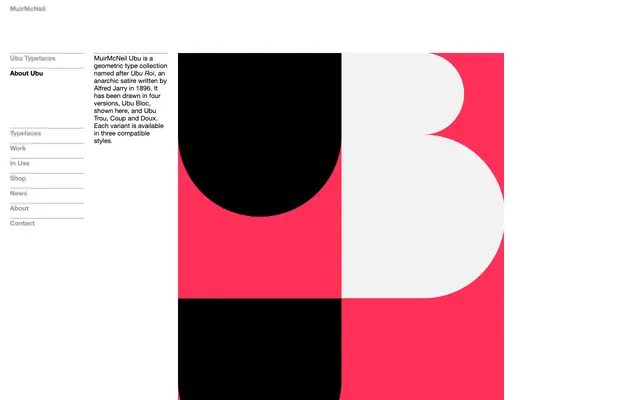
A four-variant geometric type collection from MuirMcNeil, named after Alfred Jarry's anarchic 1896 play, each variant exploring a different structural treatment of the same underlying geometric forms.
Each of the four variants takes a distinct approach to the same geometric skeleton: Ubu Bloc presents solid forms, Ubu Trou inserts rudimentary counter shapes into the contours, Ubu Coup splits characters into their geometric sub-components, and Ubu Doux softens all inner junctions with gentle curves. The three compatible styles within each variant allow for layering and systematic composition. The collection sits firmly in the experimental, constructivist tradition of geometric lettering.
Ubu is a collection of geometric display typefaces built entirely from solid geometric forms, with each variant exploring structural permutations of those forms through counters, segmentation and curved junctions.